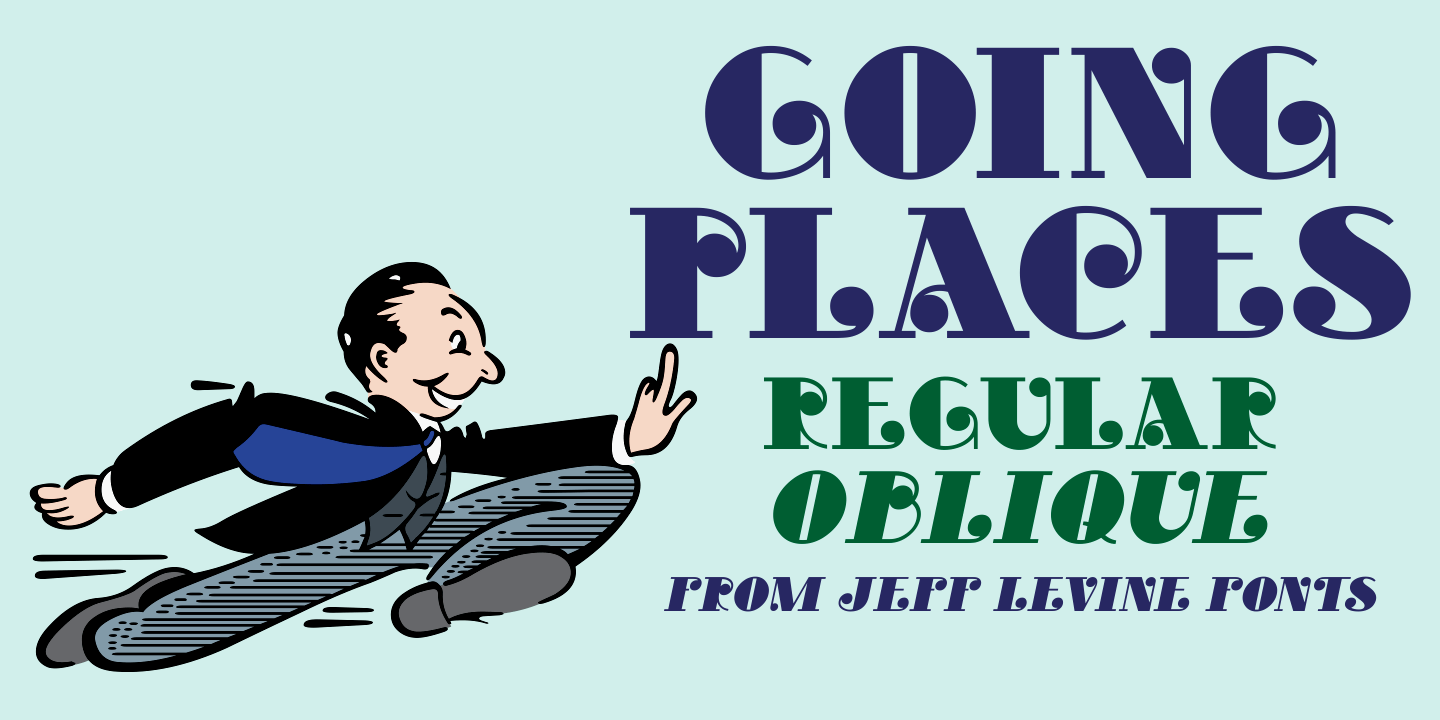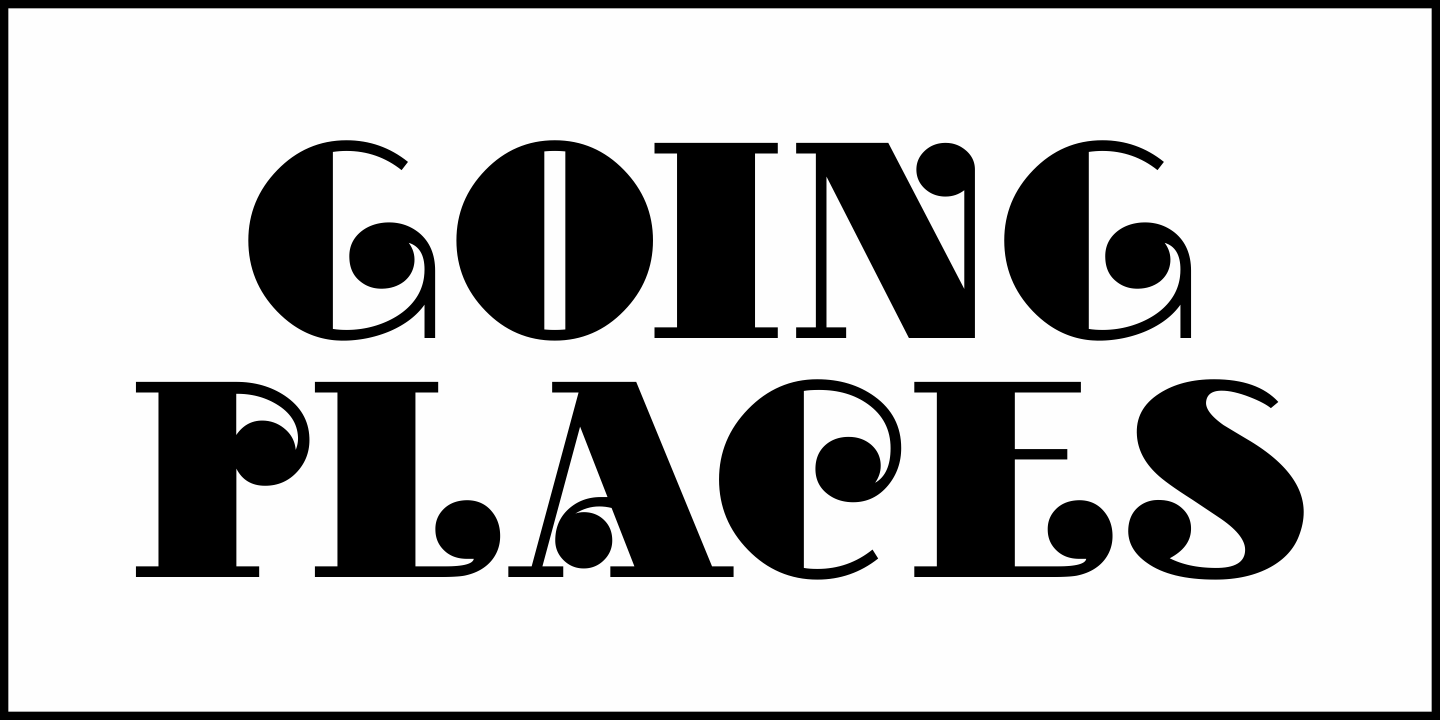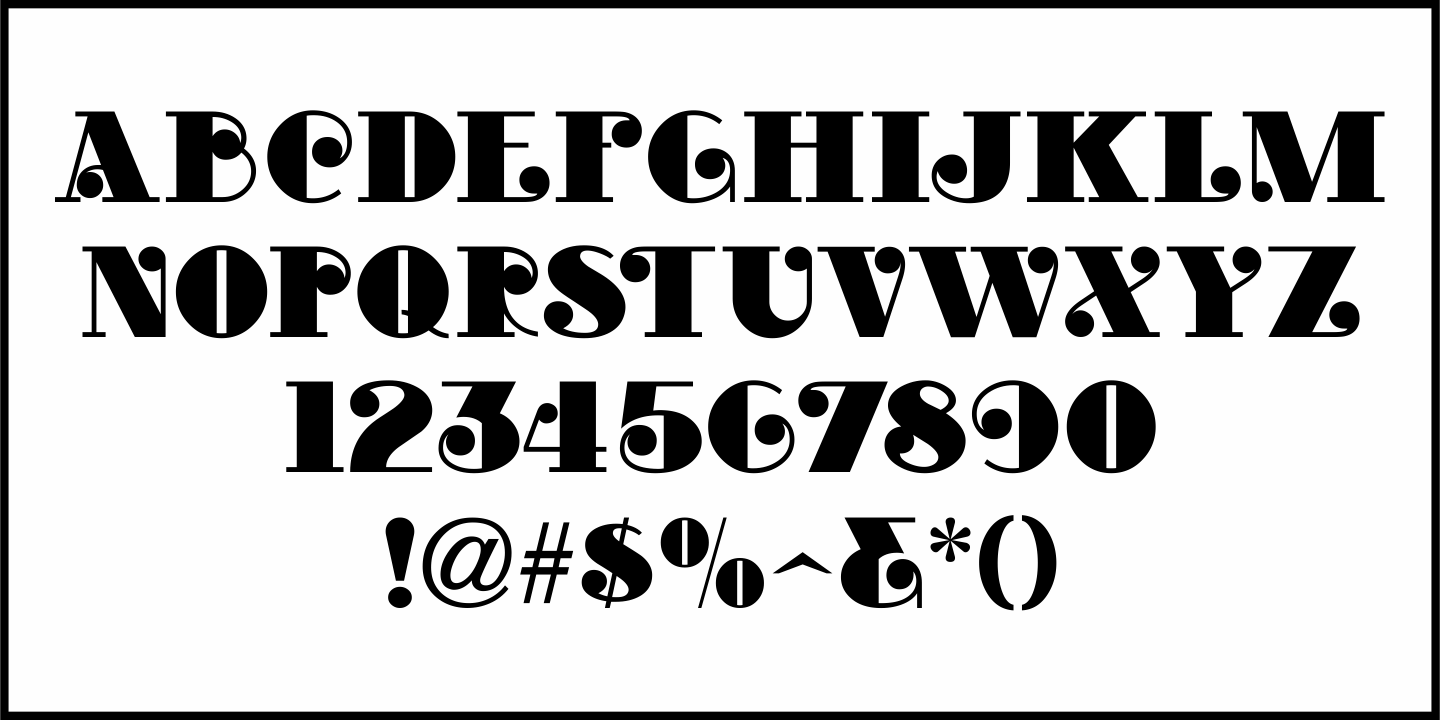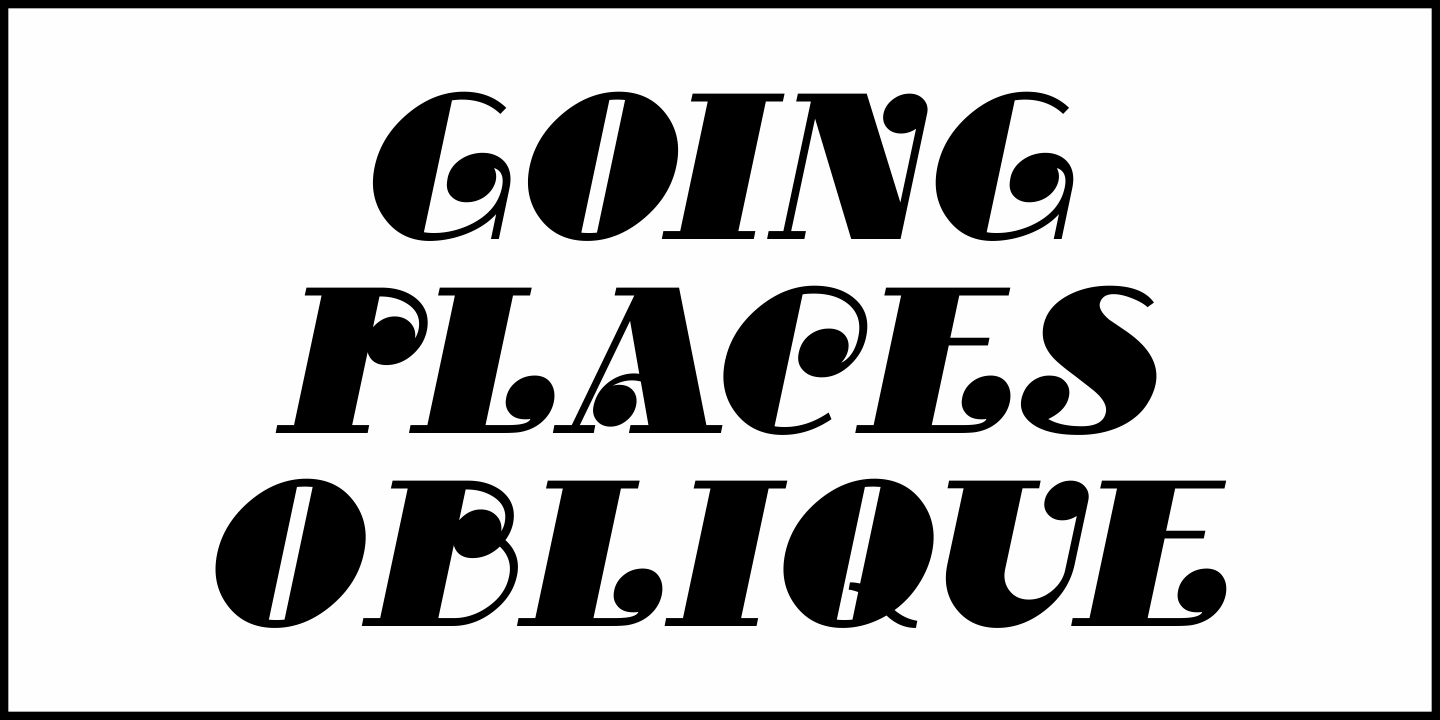
Going Places
Based on hand lettering from a January 26, 1930 ad for the 1930 Fox Studios film "Let's Go Places", the lettering is an ultra bold serif design with numerous ball terminals throughout the character set. The typeface is both formal, yet casual and playful in appearance.
Going Places JNL is available in both regular and oblique versions.
Going Places JNL Regular by Jeff Levine Fonts